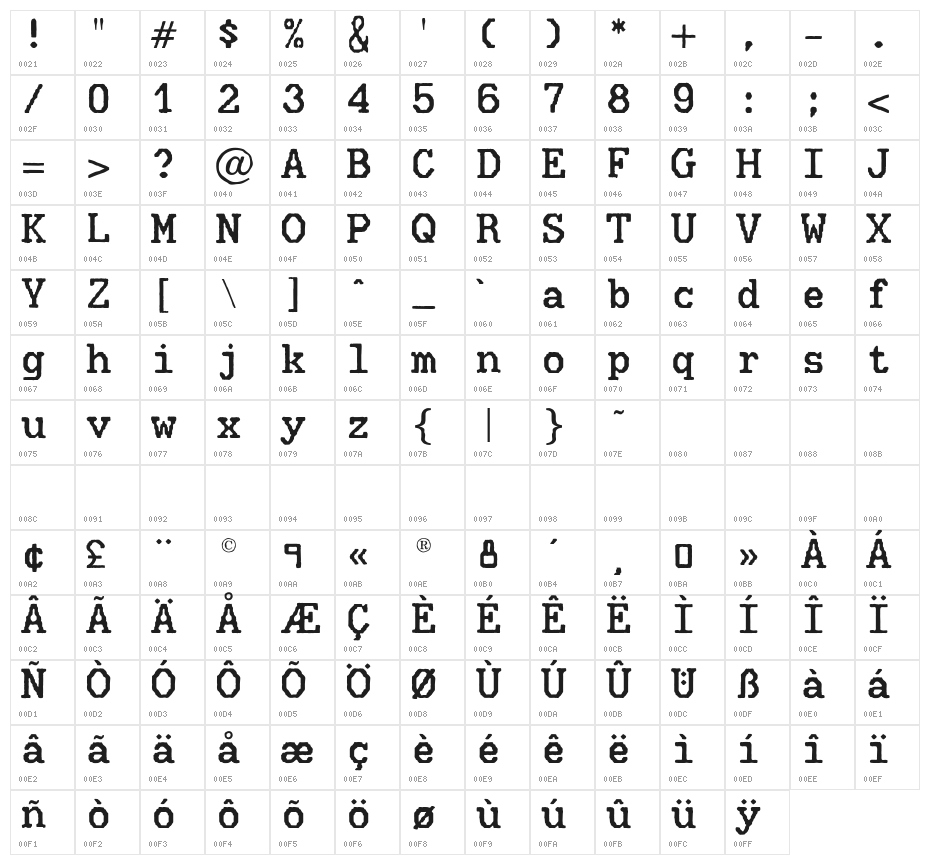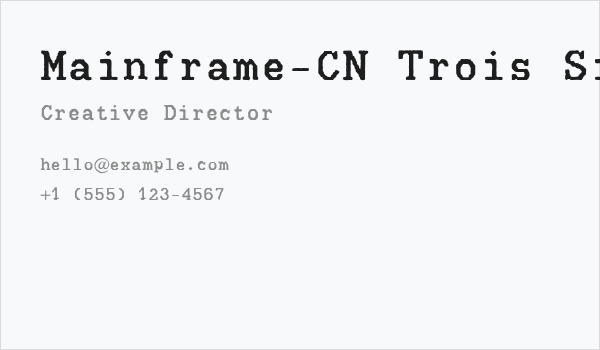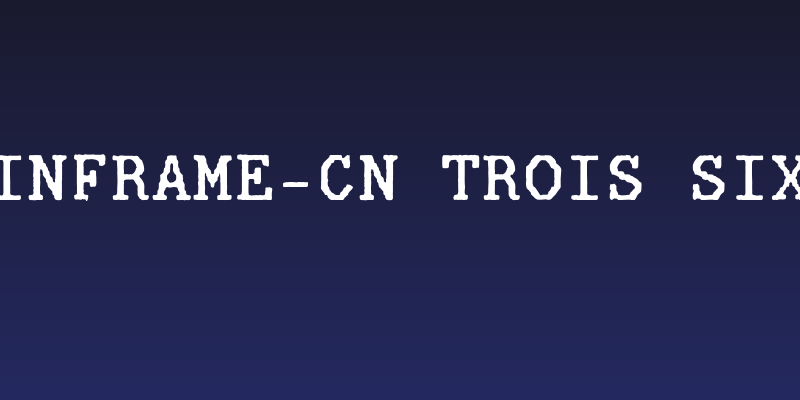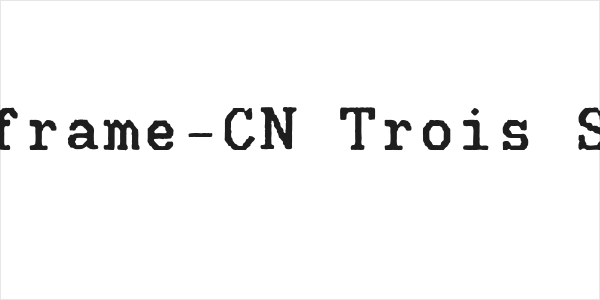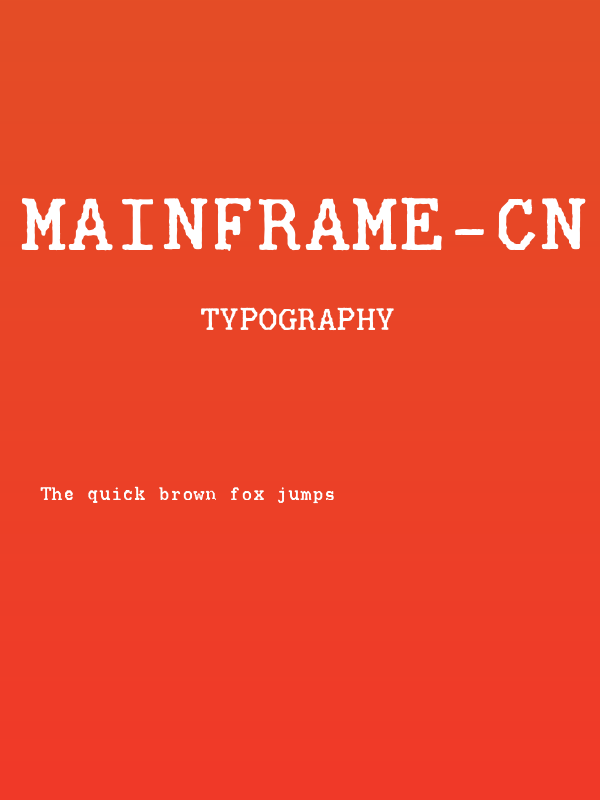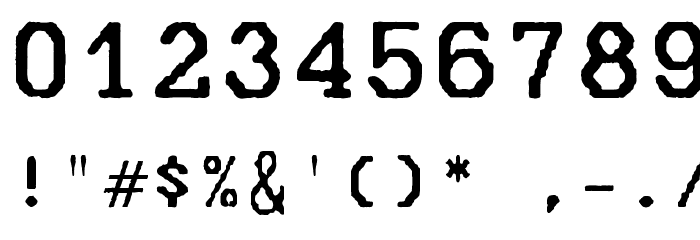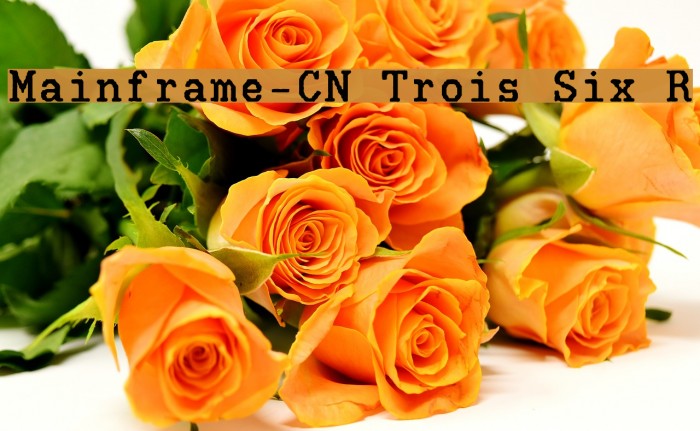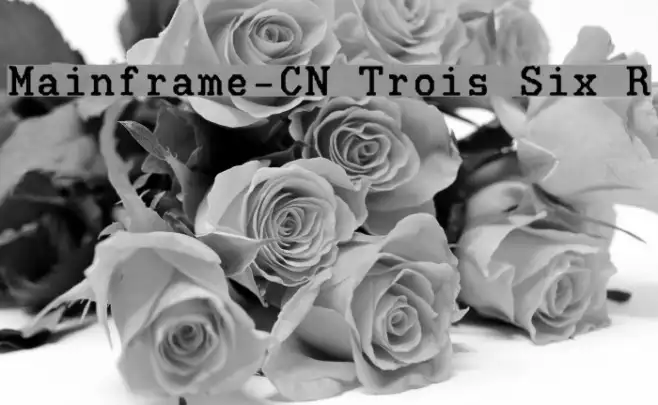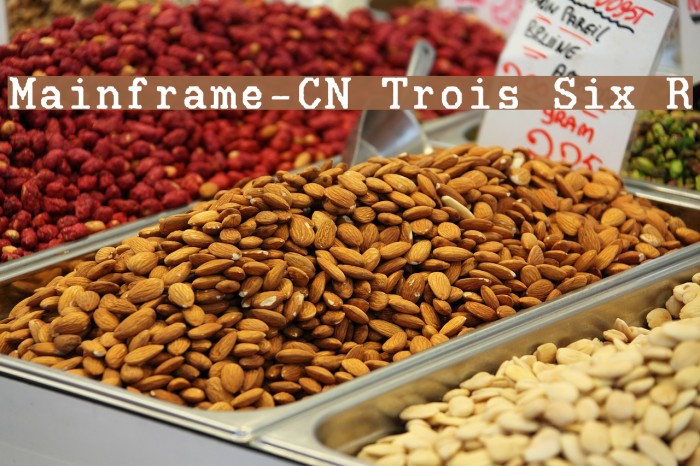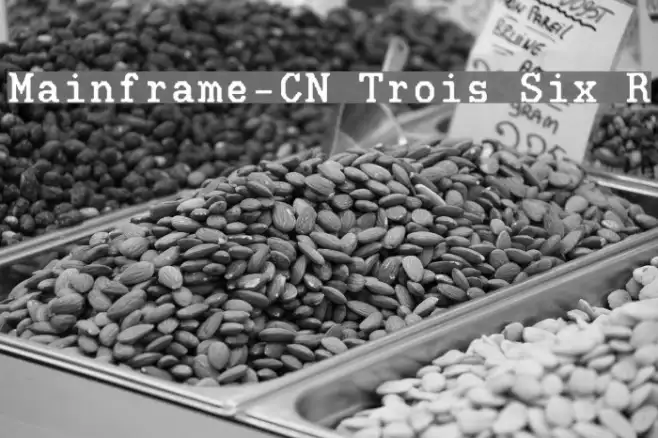
Mainframe-CN Trois Six R Font
Mainframe-CN Trois Six R Description
This font features a rugged, typewriter-inspired design with a distinctly vintage feel. The characters exhibit a slightly uneven texture, reminiscent of old mechanical typewriters, which adds a sense of authenticity and nostalgia. The uppercase and lowercase letters maintain a consistent style, with bold, slightly rounded edges and a uniform stroke width. Numbers and special characters follow the same aesthetic, ensuring a cohesive look across all text. This font's unique character is further emphasized by its medium contrast and normal character spacing, making it both readable and visually interesting.
| Proposed Projects | Ideal for retro-themed designs, vintage posters, typewriter-style documents, and creative projects that require a nostalgic touch. |